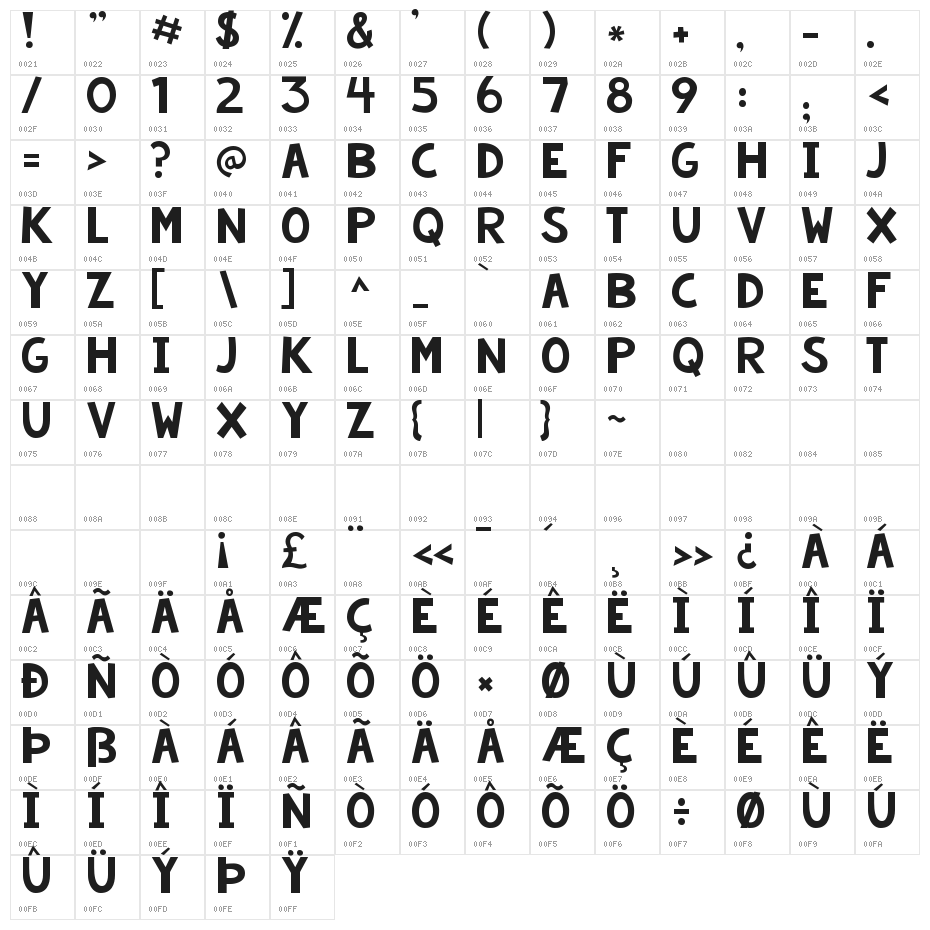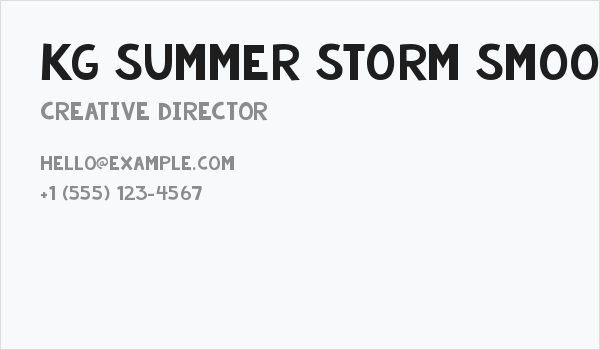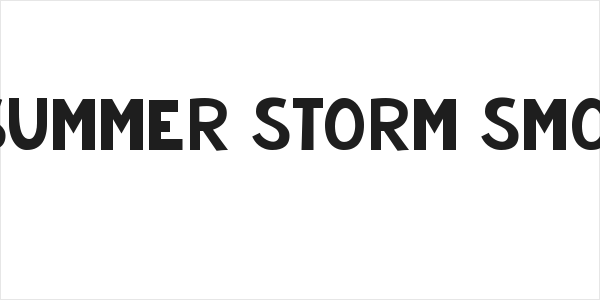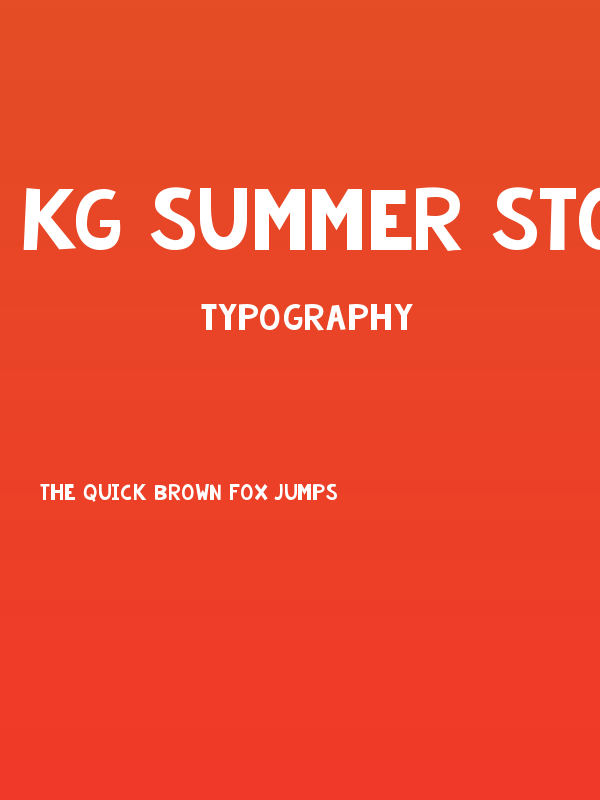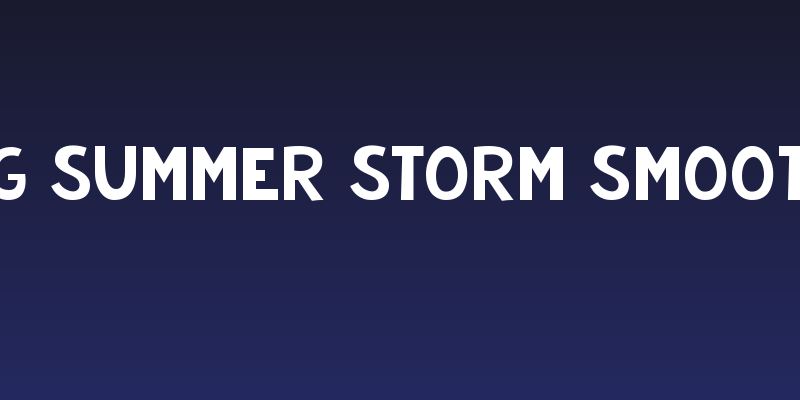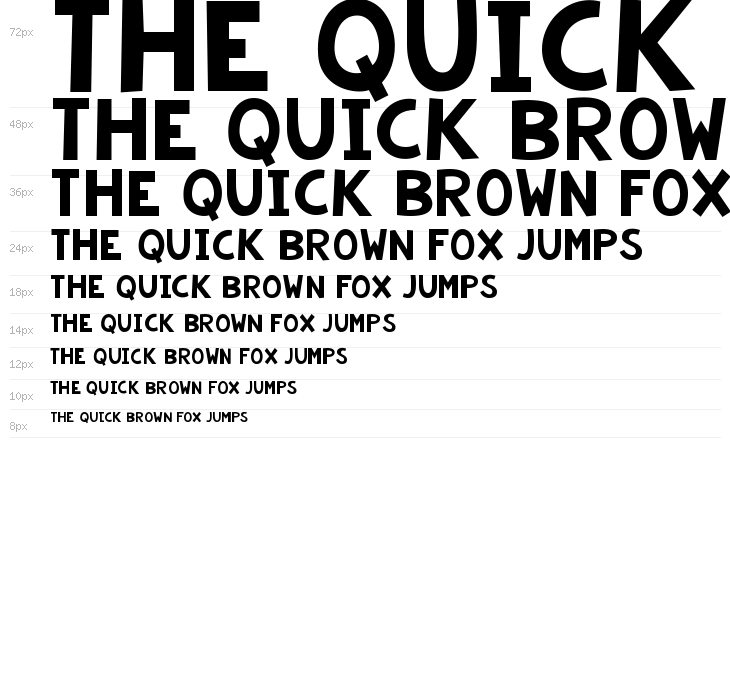
KG Summer Storm Smooth Font
KG Summer Storm Smooth Description
This font features bold, smooth characters with a playful and slightly whimsical style. The letters are well-rounded with consistent stroke thickness, giving it a friendly and approachable appearance. The uppercase and lowercase letters maintain a uniform width, contributing to a cohesive look. The numerals are clear and easy to read, matching the overall style of the alphabet. Special characters are included, maintaining the same bold and smooth characteristics. This font is versatile, suitable for various creative projects that require a touch of personality.
| Proposed Projects | Ideal for children's books, playful branding, posters, and greeting cards. |